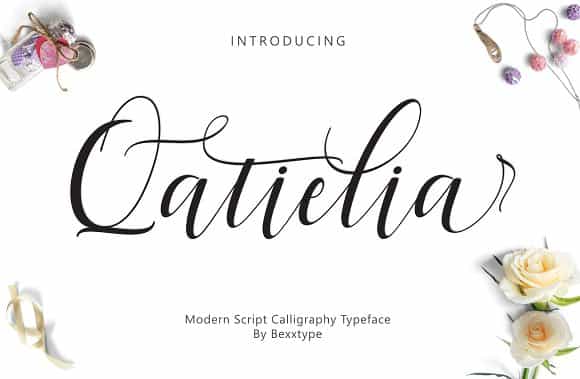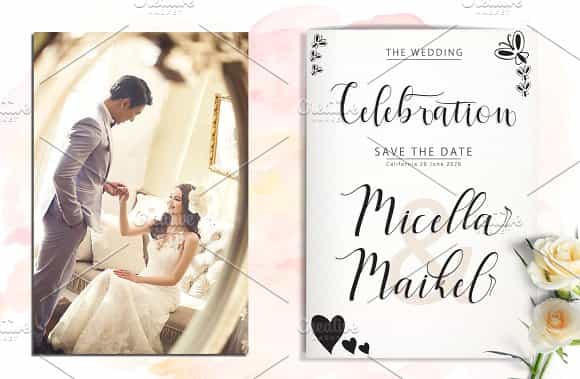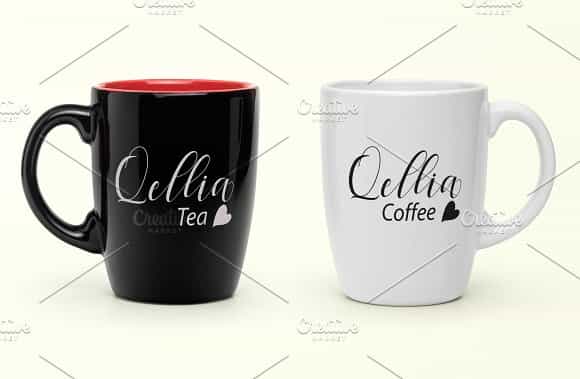
Discover Qatielia Script Font, part of the Calligraphy collection—a versatile and unique font perfect for adding a personal touch to your projects. Download it for free and enjoy crafting designs with style, from invitations to social media posts. This font is available exclusively for personal use, giving you the freedom to create without limits. Unlock your creativity with Qatielia Script Font today!